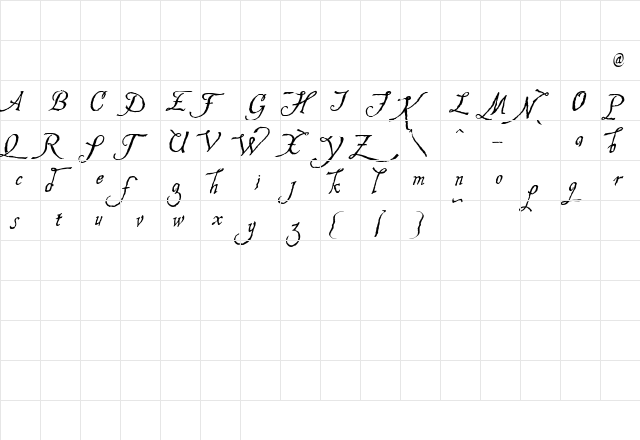
Hesperides Demo Regular
Design Context for Hesperides Demo Typeface
Hesperides Demo is a composed and adaptable typeface that performs quietly and consistently across a wide range of design contexts.
Pro Tip: Use Hesperides Demo in both headline and body roles to test its range before committing to a single application.